Trib3.0 Studios logo
For Trib3.0, a startup NFT studio working across fashion, music and art, GA&T designed this tribal brand identity.
There’s a bespoke wordmark in bronze with angular details, a shortened ‘3.0’ as monogram, and a drum mark as a dot that acts as shorthand for the brand.
Trib3.0 wordmark logo
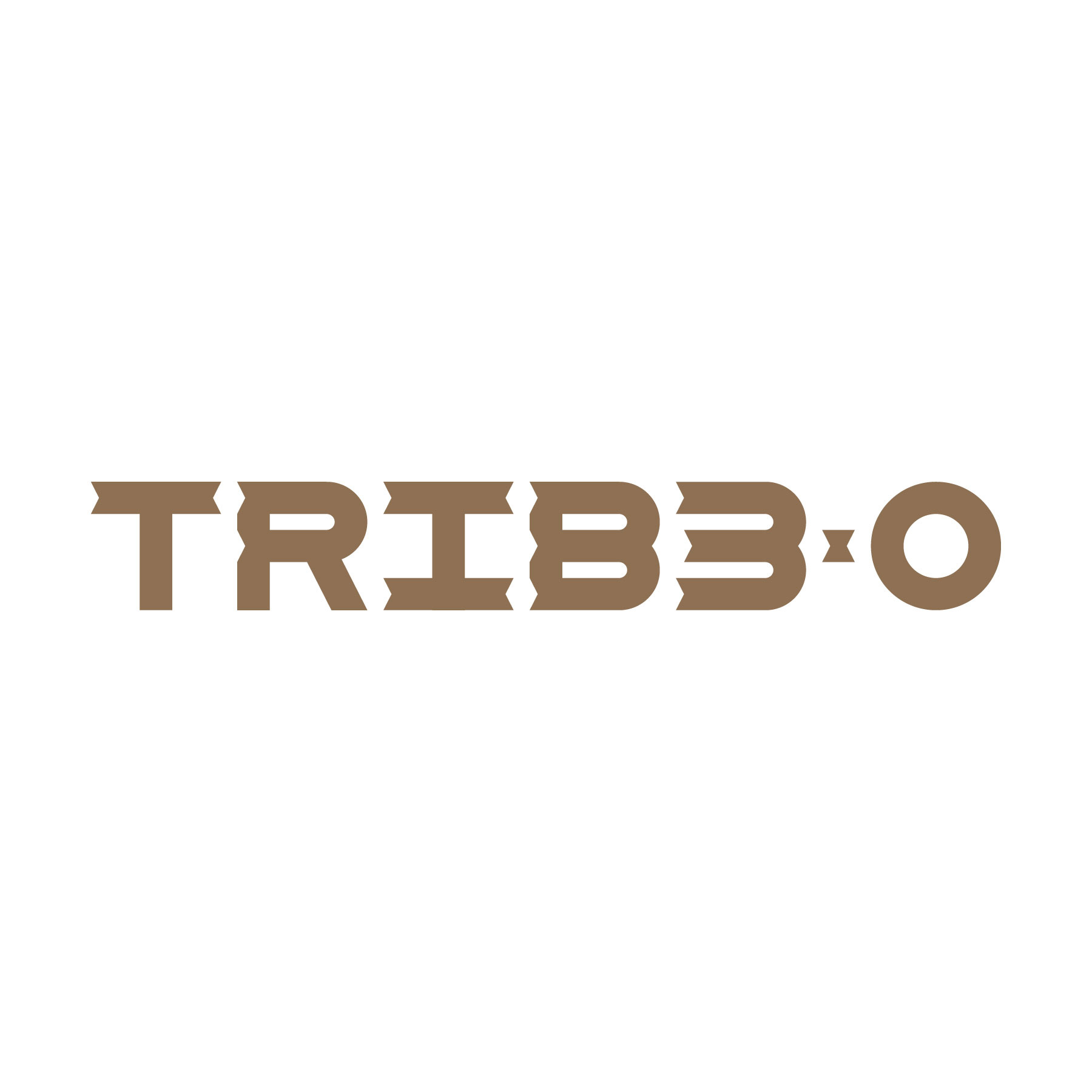
Trib3.0 wordmark, 3.0 monogram and drum symbol